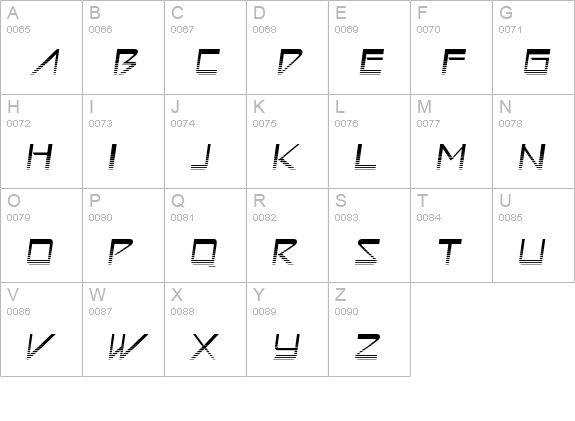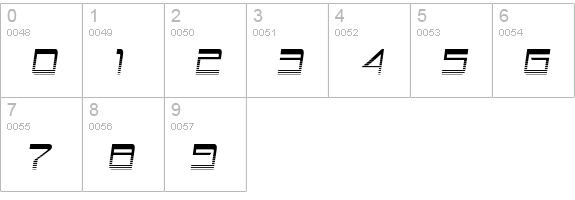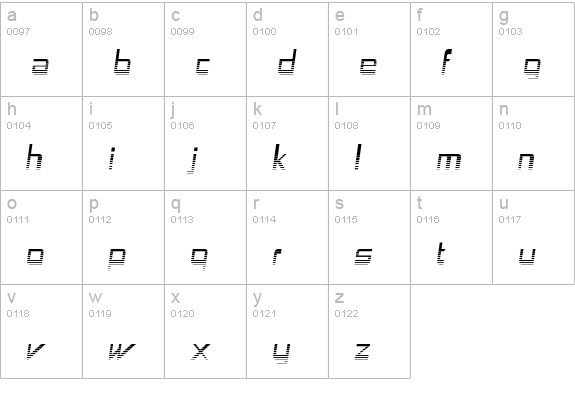
Introducing Astron Boy Video font, a futuristic and dynamic typeface designed to elevate your projects to stellar heights. This unique font features sleek lines and bold shapes that exude a sense of innovation and modernity. Whether you're working on a sci-fi movie poster, tech blog, or gaming website, Astron Boy Video font will add a touch of cosmic flair to your design. The best part? Astron Boy Video font is available for free download at FontsMarket.com. Now you can access this cutting-edge font without breaking the bank, making it the perfect choice for designers looking to add a touch of intergalactic charm to their creations. Don't miss out on the opportunity to enhance your projects with the captivating style of Astron Boy Video font – download it for free today!